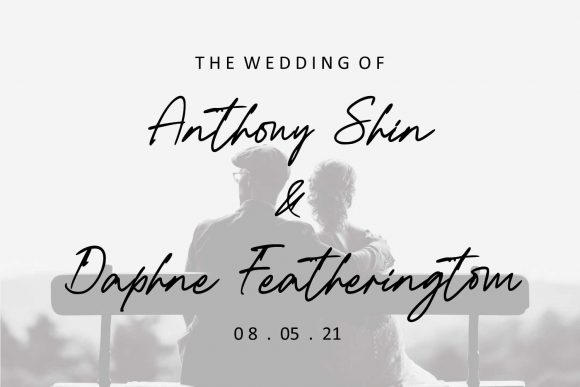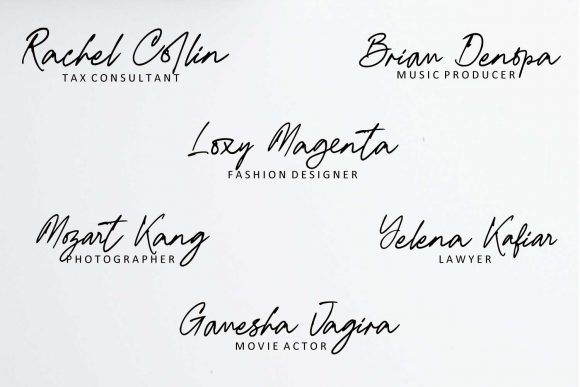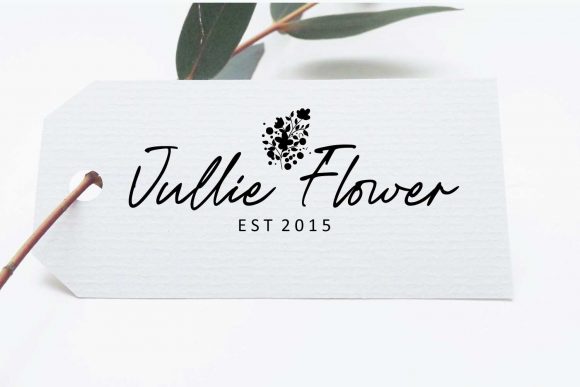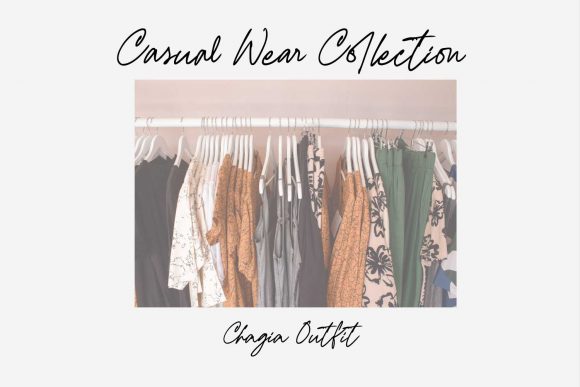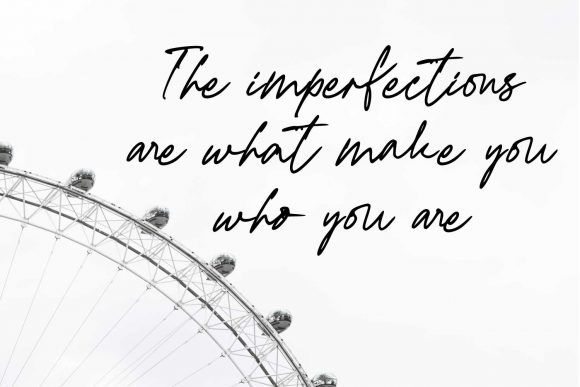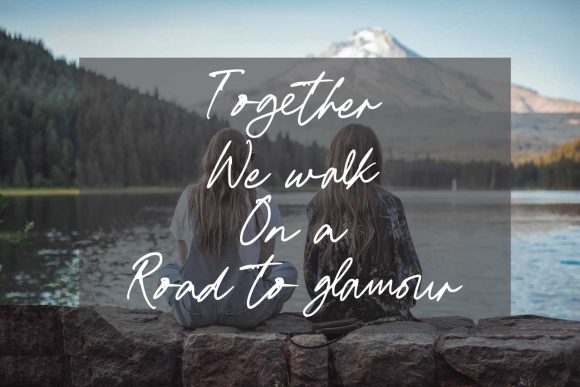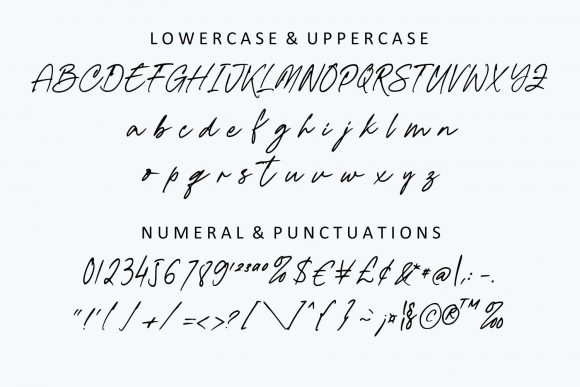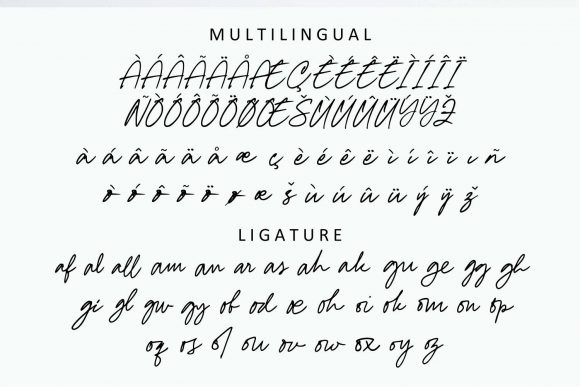
Fahrenheit Signature Font
About Fahrenheit Signature Font
Fahrenheit Signature is a stylish and delicate font that exudes sophistication and elegance. With its clean, thin, and smooth vibe, it adds a touch of refinement to any design project.
The font’s clean and thin strokes give it a modern and sleek appearance, making it perfect for a wide range of applications. Whether you’re designing a logo, creating branding materials, or working on a creative project, Fahrenheit Signature brings a sense of professionalism and class to your designs.
The smoothness of the font’s lines adds to its overall polished look. Each character is carefully crafted to maintain consistency and legibility. This attention to detail ensures that your text appears refined and visually pleasing, enhancing the overall aesthetic of your design.
Fahrenheit Signature’s versatility is another standout feature. It can be seamlessly integrated into various design projects, including but not limited to invitations, business cards, signage, headers, and more. Its delicate and stylish nature makes it suitable for both formal and casual contexts, allowing you to create a wide range of visual experiences.
Furthermore, Fahrenheit Signature’s timeless appeal ensures that it will remain relevant and visually pleasing for years to come. Its classic yet contemporary design makes it a font choice that will stand the test of time, allowing your designs to maintain a sense of elegance and sophistication regardless of trends.
In summary, Fahrenheit Signature is a stylish and delicate font that brings a clean, thin, and smooth vibe to your designs. Its versatility, combined with its timeless appeal, makes it suitable for a variety of design projects. Whether you’re creating a logo, branding materials, or any other design that requires a touch of sophistication, Fahrenheit Signature is a perfect choice.